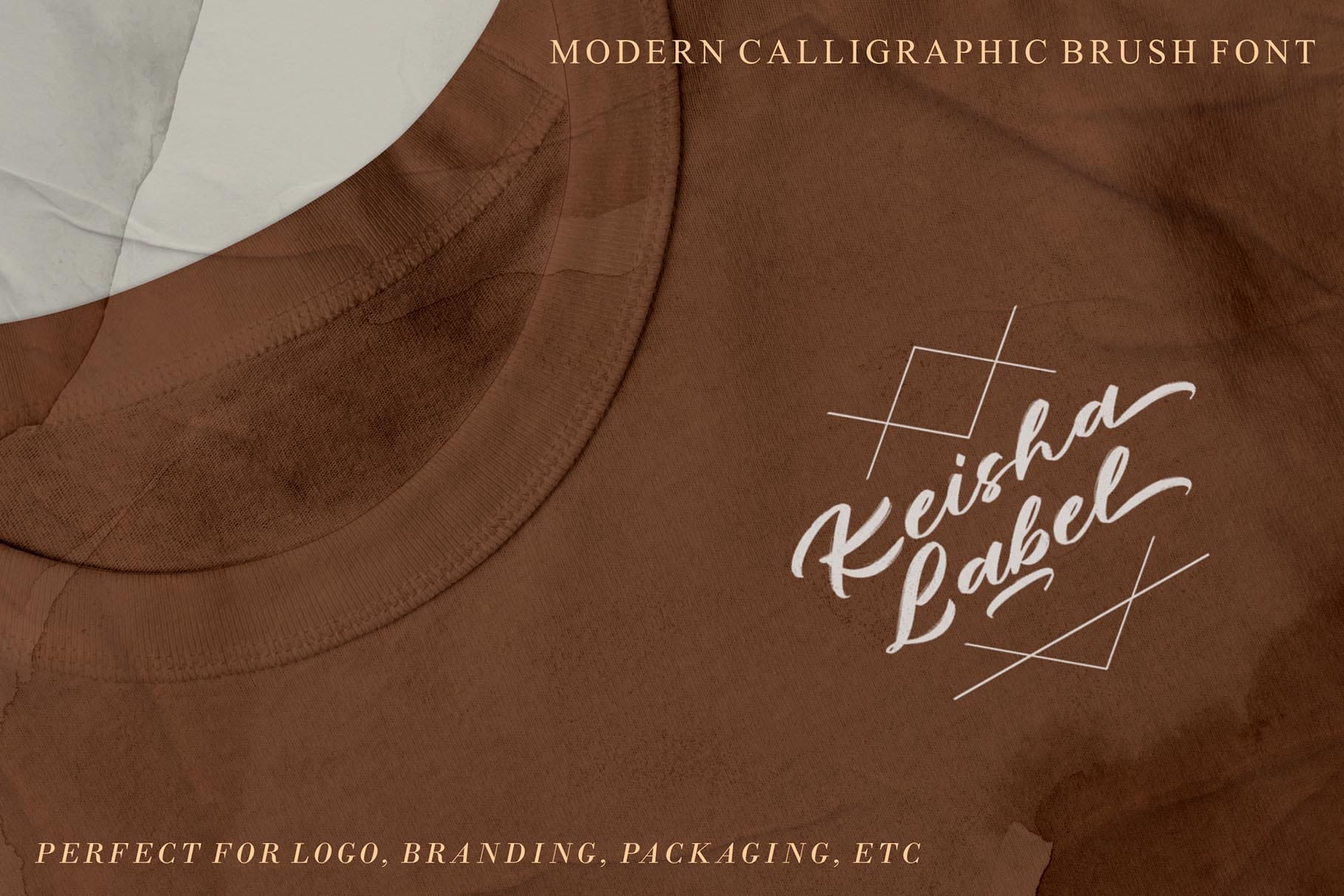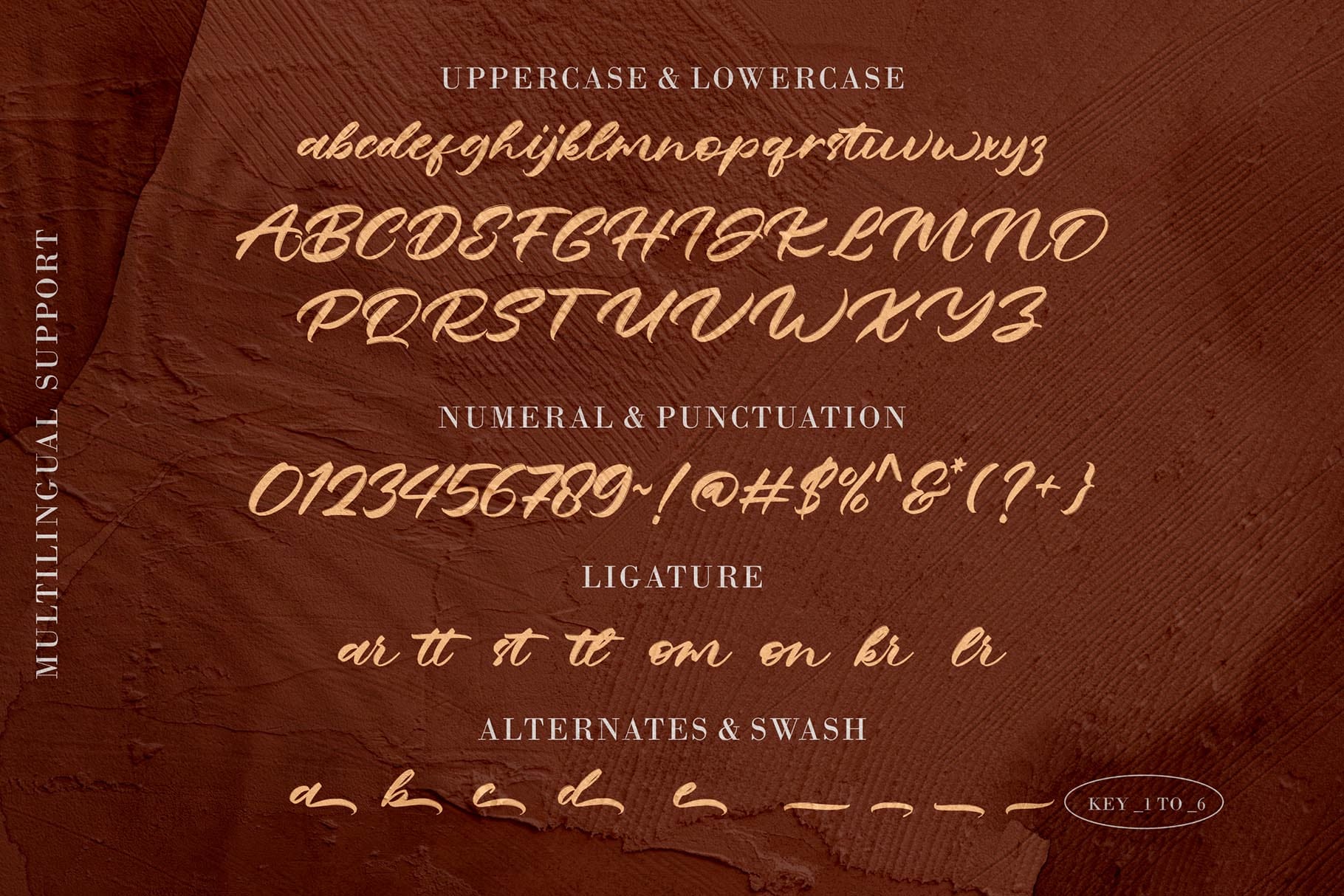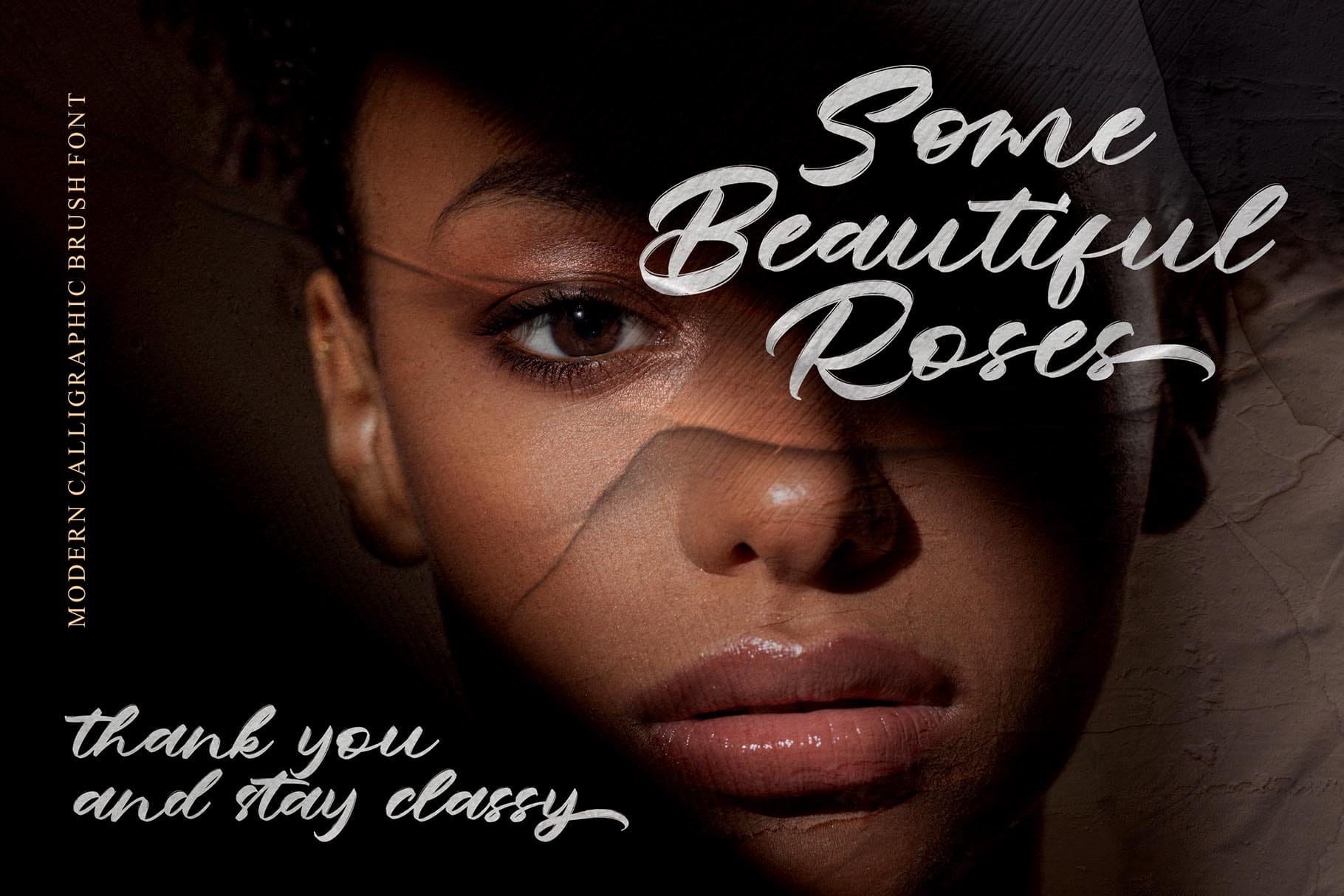
Astogria Bejha Modern Brush Font for Bold Creative Work
Astogria Bejha modern brush font is made for designers who want their typography to feel energetic, expressive, and crafted by hand. With its detailed dry brush marker texture, this font brings a raw visual rhythm that feels confident without becoming messy. It has the kind of personality that works well when a design needs movement, attitude, and a strong handmade impression.
This font is a practical choice for branding, headlines, and printed products. Whether you are building a visual identity for a modern lifestyle brand, creating standout packaging, designing merchandise, or making bold promotional graphics, Astogria Bejha gives your words a more human and expressive voice.
Its brush-based style makes it especially useful for projects that need impact at first glance. The letterforms carry a fresh urban edge, while the dry marker texture adds depth and authenticity. The result is a font that feels modern, personal, and visually memorable.
Astogria Bejha has a modern hand-drawn brush personality with textured strokes and expressive movement. The dry brush marker detail gives each word a handcrafted feel, making the font suitable for designs that should look energetic, natural, and intentionally imperfect.
The style sits between bold display lettering and expressive brush handwriting. It is not too formal, and it is not overly decorative. Instead, it gives designers a flexible brush font that can support many creative directions, from urban branding to casual lifestyle graphics.
The uppercase and lowercase characters help create more natural typographic compositions. You can build strong headline layouts, short brand statements, packaging text, and promotional artwork with a handmade visual tone. Because the font includes numbers and punctuation, it can also support practical design needs such as prices, dates, product labels, and short marketing phrases.
Best Use Cases
Astogria Bejha modern brush font is especially useful for projects that need expressive typography as the main visual element. It works well for branding, logo concepts, headline design, product packaging, poster layouts, apparel graphics, merchandise, labels, social media content, and printed products.
For brand designers, Astogria Bejha can help create a logo or visual identity with a more handcrafted and confident character. It can give a business name a bold personality, especially for brands in lifestyle, fashion, streetwear, coffee, creative services, handmade goods, or personal branding.
For packaging designers, the dry brush texture can add warmth and energy to labels, boxes, wrappers, and product tags. It can make a product feel more expressive and crafted, especially when paired with clean supporting typography.
For content creators and digital product sellers, Astogria Bejha can be used in social media quotes, printable wall art, digital templates, posters, and promotional graphics. Its brush marker style helps short phrases feel more alive, making it a strong option when the text needs to carry emotion and movement.
Key Features
• Uppercase and lowercase characters
• Numbers and punctuation
• Ligature
• Stylistic alternate
• Swash
• Detailed dry brush marker texture
• Versatile for branding, headlines, and printed products
Designers love Astogria Bejha because it gives text an immediate sense of movement. The brush marker detail helps typography look less flat and more expressive, which is valuable when a design needs to stand out in a crowded visual space.
It also gives designers flexibility. You can use it for a bold logo mark, a large headline, a packaging statement, or a social media graphic. The included ligature, stylistic alternate, and swash options offer extra creative control for building more custom-looking compositions.
For client work, Astogria Bejha helps create a strong first impression without requiring heavy illustration or complex layout work. A short word, brand name, or slogan can already feel dynamic when set in this font. That makes it useful for designers who need typography that can lead a composition with confidence.
For small business owners and creators, this font can help bring a handmade, energetic tone to visual materials. It feels personal, expressive, and bold, which makes it a good fit for brands that want to look creative and approachable.
For a clean and balanced layout, pair Astogria Bejha with a modern sans serif font. A simple supporting typeface can help the brush lettering stand out while keeping the overall design readable and professional.
Astogria Bejha modern brush font is a strong choice when your design needs expressive lettering, handmade texture, and bold visual energy. From branding and packaging to headlines, posters, apparel, and printed products, it helps your typography feel more personal, confident, and memorable.